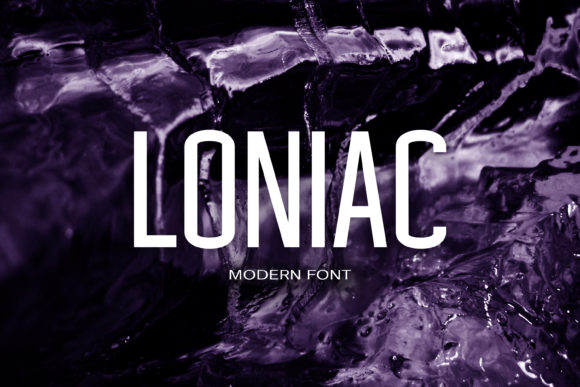
Embark on a journey through the realm of typography with Loniac, a sans serif font masterpiece crafted by DmDesignsStoreArt. This modern creation exudes elegance and simplicity, seamlessly blending classic aesthetics with a refreshing twist.
Loniac's crisp lines and subtle curves dance across the digital canvas, captivating your audience with its refined beauty. Each character carries a sense of purpose, enhancing readability and creating a visually striking impact.
Discover the versatility of Loniac, a font family that adapts effortlessly to a myriad of design projects. Whether you're crafting logos, branding materials, website designs, or social media graphics, Loniac's presence elevates your creations with a touch of sophistication.
Immerse yourself in the captivating charm of Loniac, a font that ignites inspiration and fuels your creativity. Its clean and contemporary style effortlessly complements any design vision, adding a touch of class and distinction to your projects.